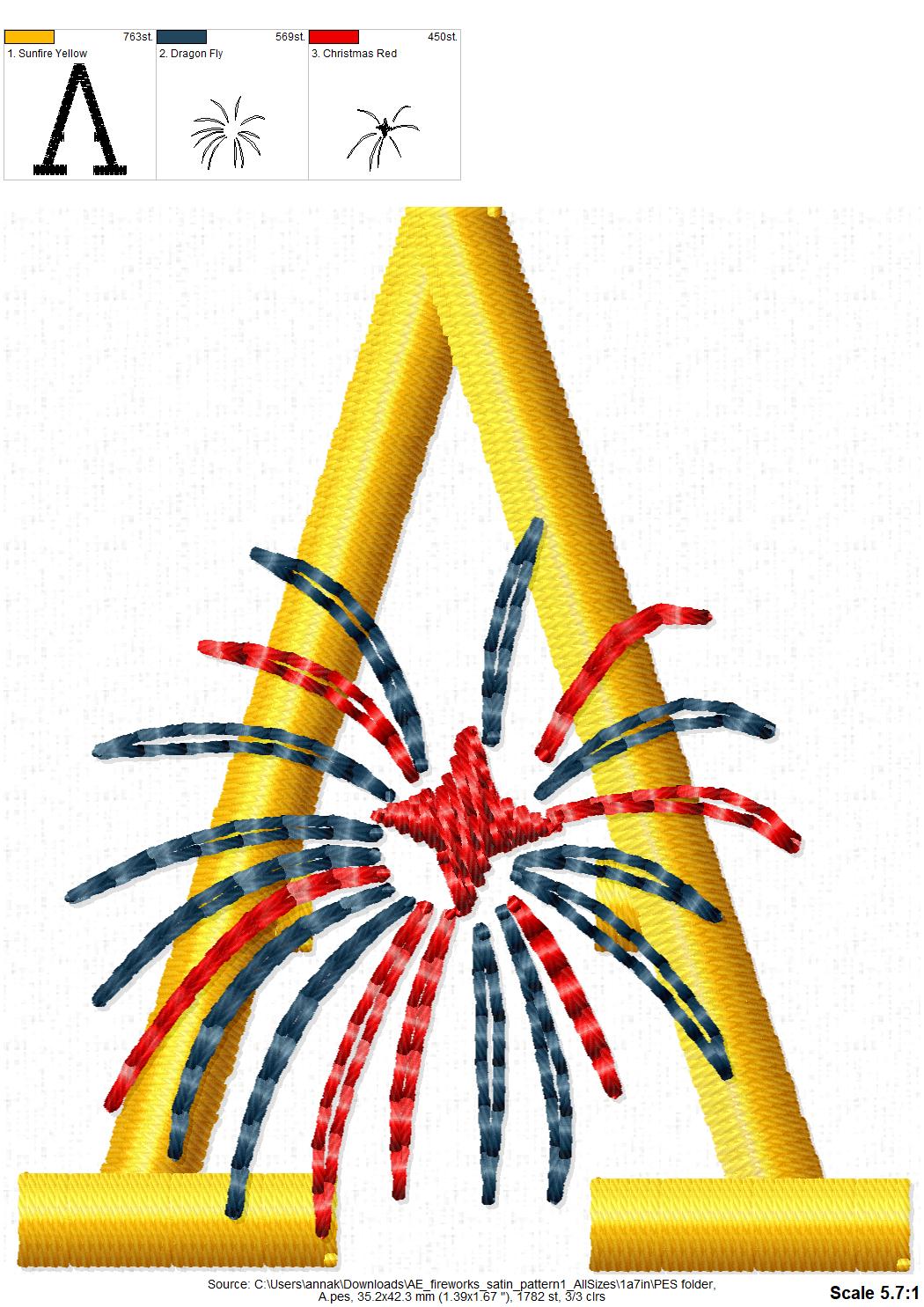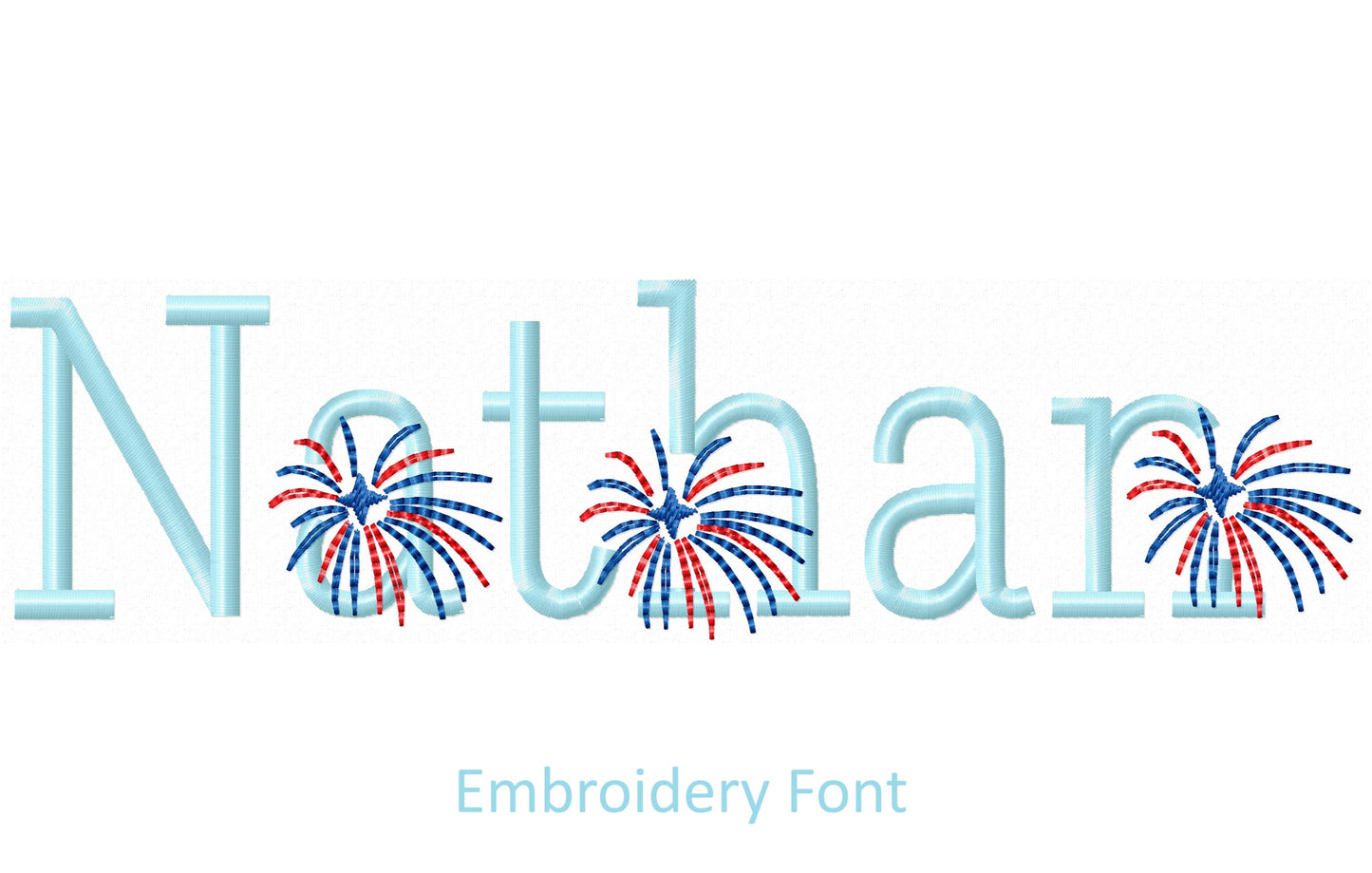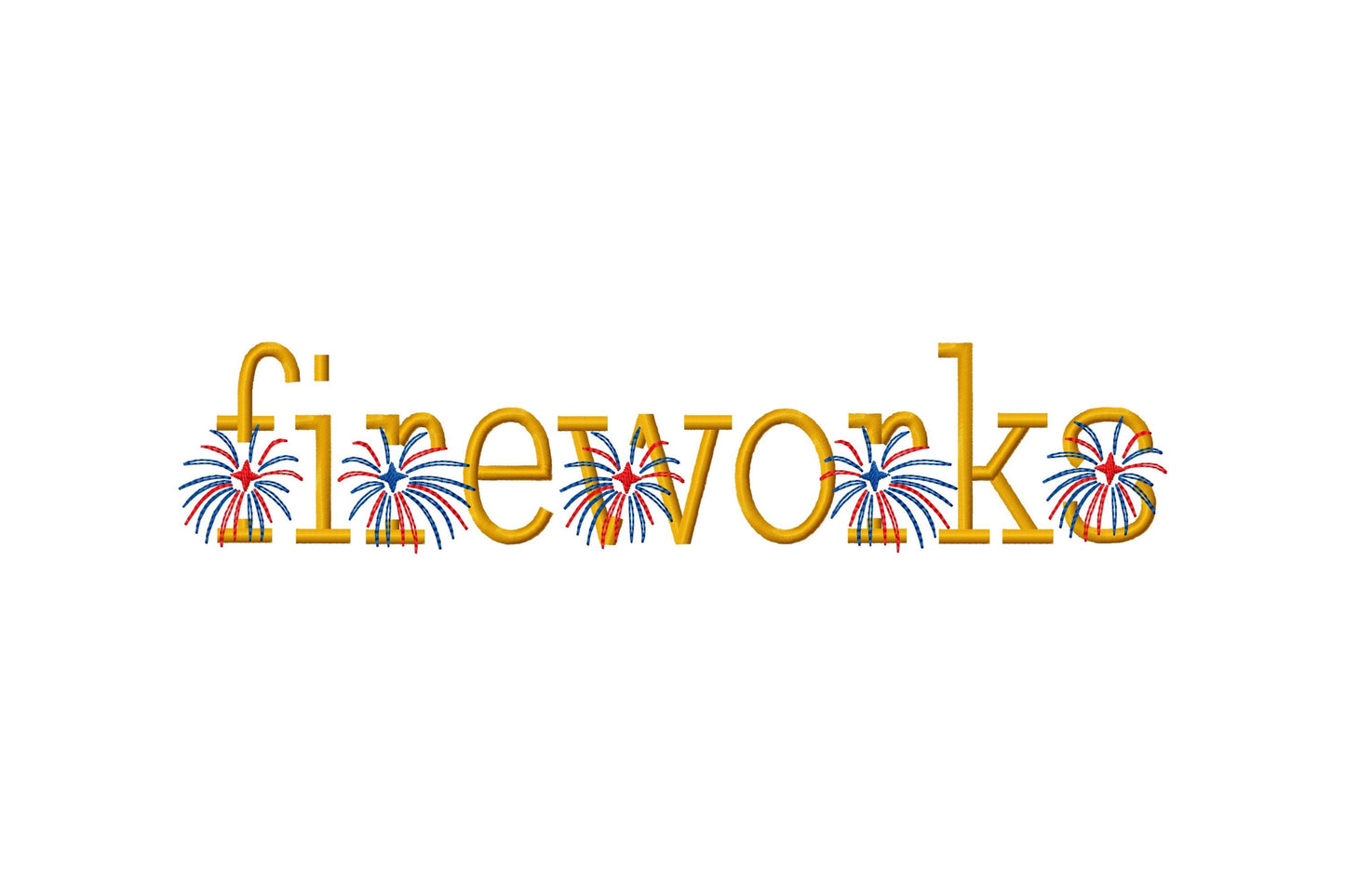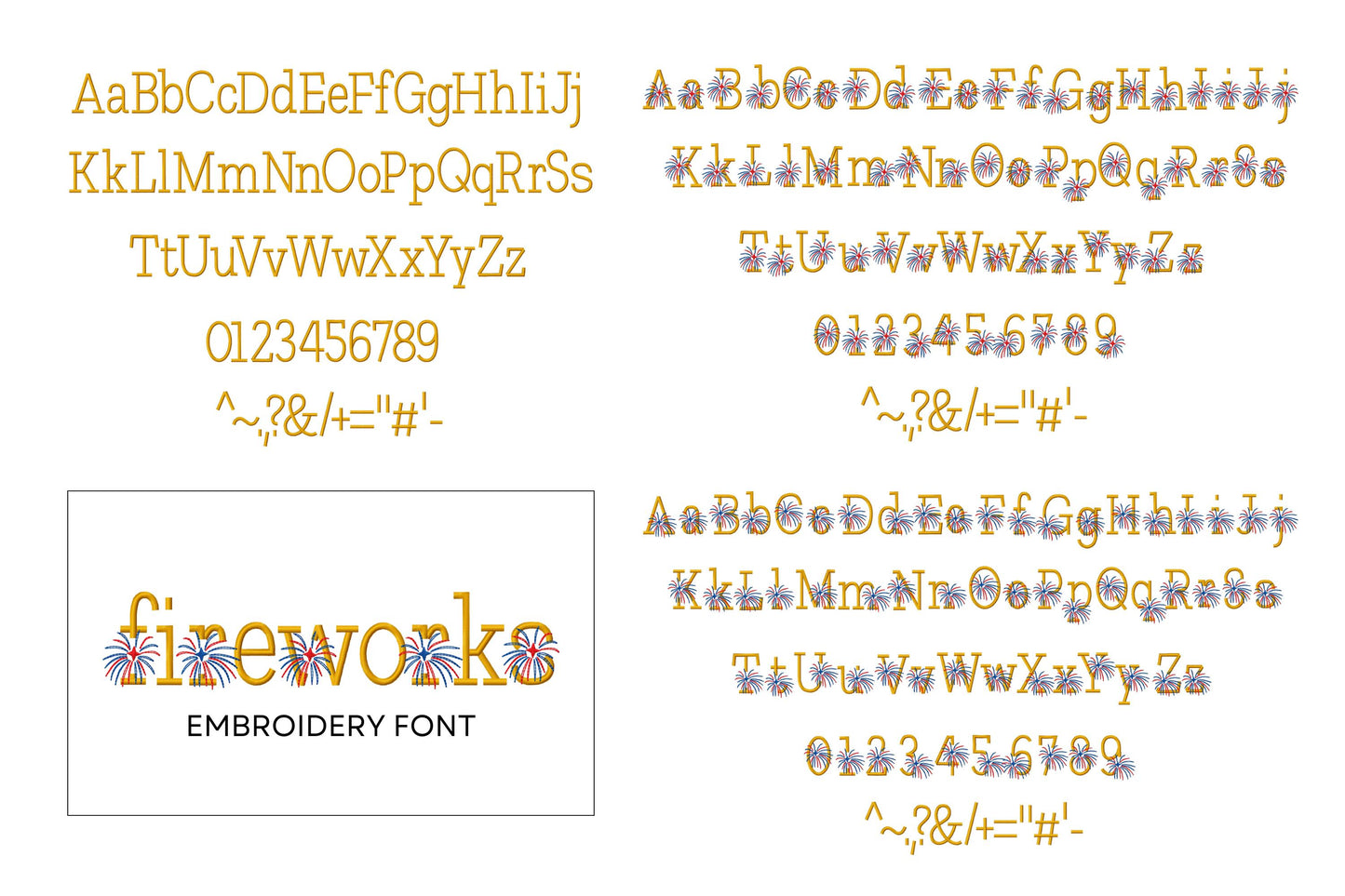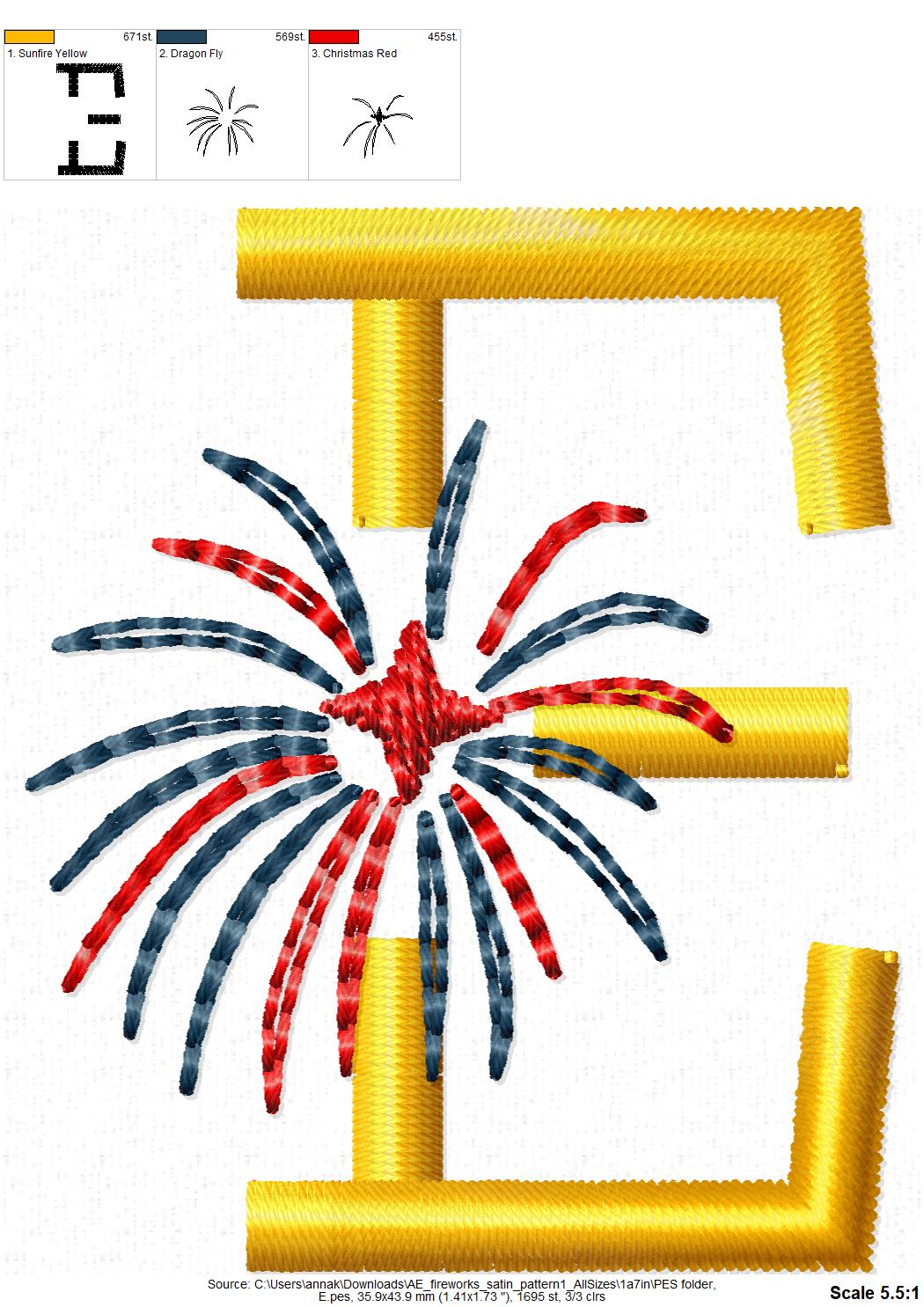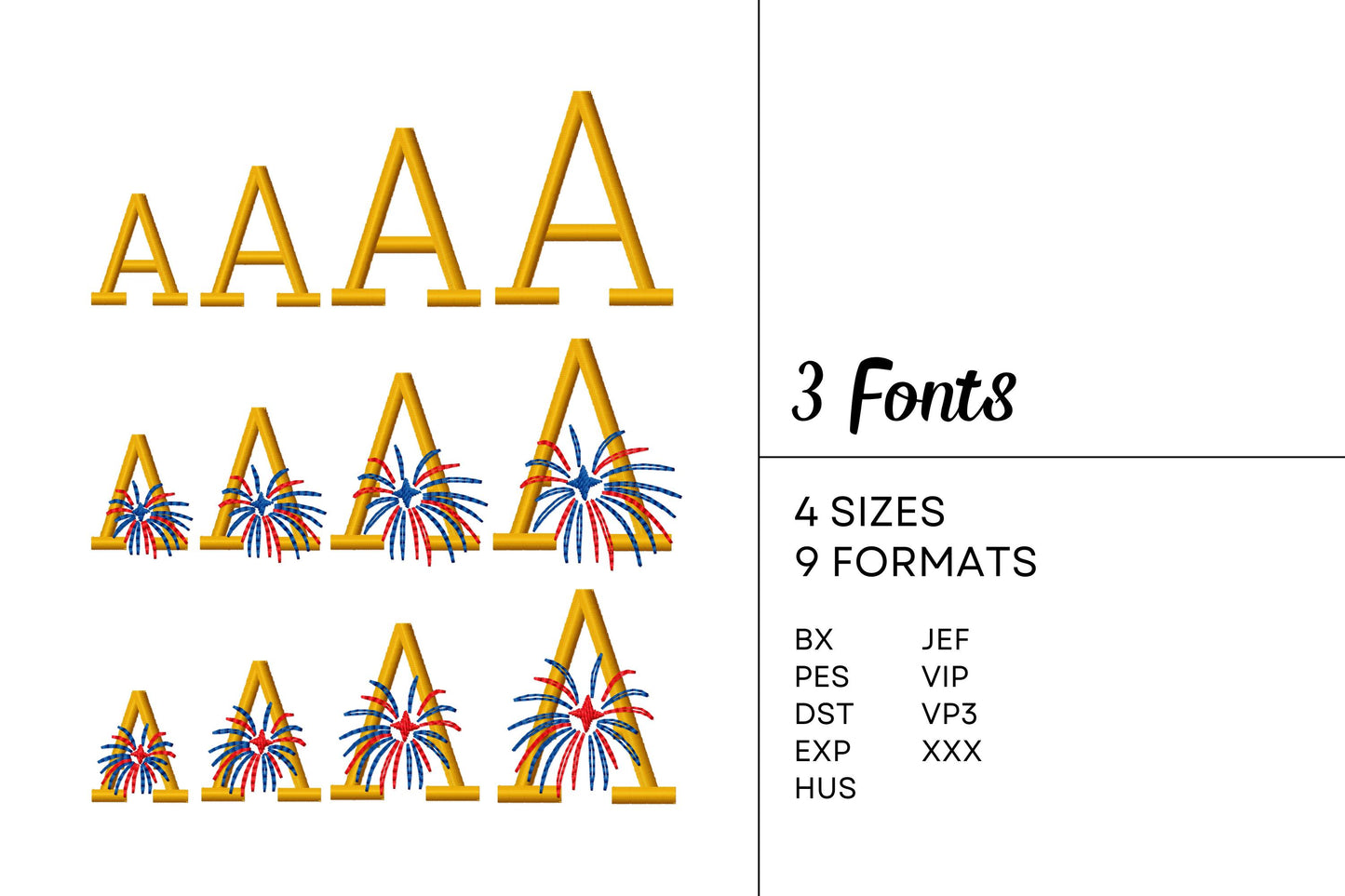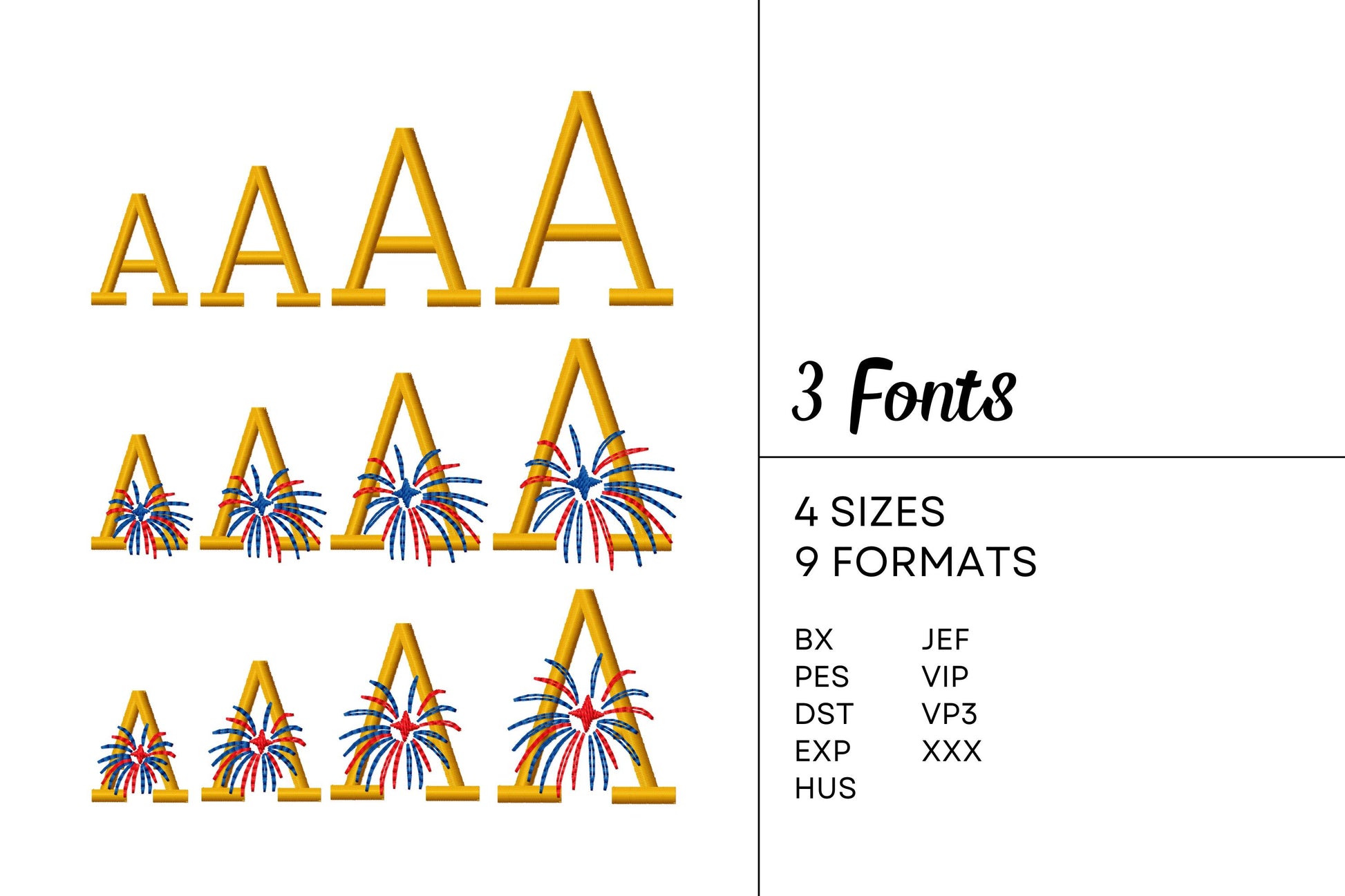
Fireworks 4th July Independence Day Patriotic Bundle Satin Stitch 3
Or click to open the linkThree satin stitch fonts for the 4th of July: one plain and two with fireworks. Festive for patriotic shirts, names and party gear.
Each font has uppercase and lowercase letters, numbers 0 to 9 and punctuation, in four small sizes: 1, 1.3, 1.7 and 2 inches. Smooth satin stitch.
- 3 fonts: plain and 2 fireworks styles
- Uppercase and lowercase letters, numbers and punctuation
- 4 sizes: 1, 1.3, 1.7 and 2 in